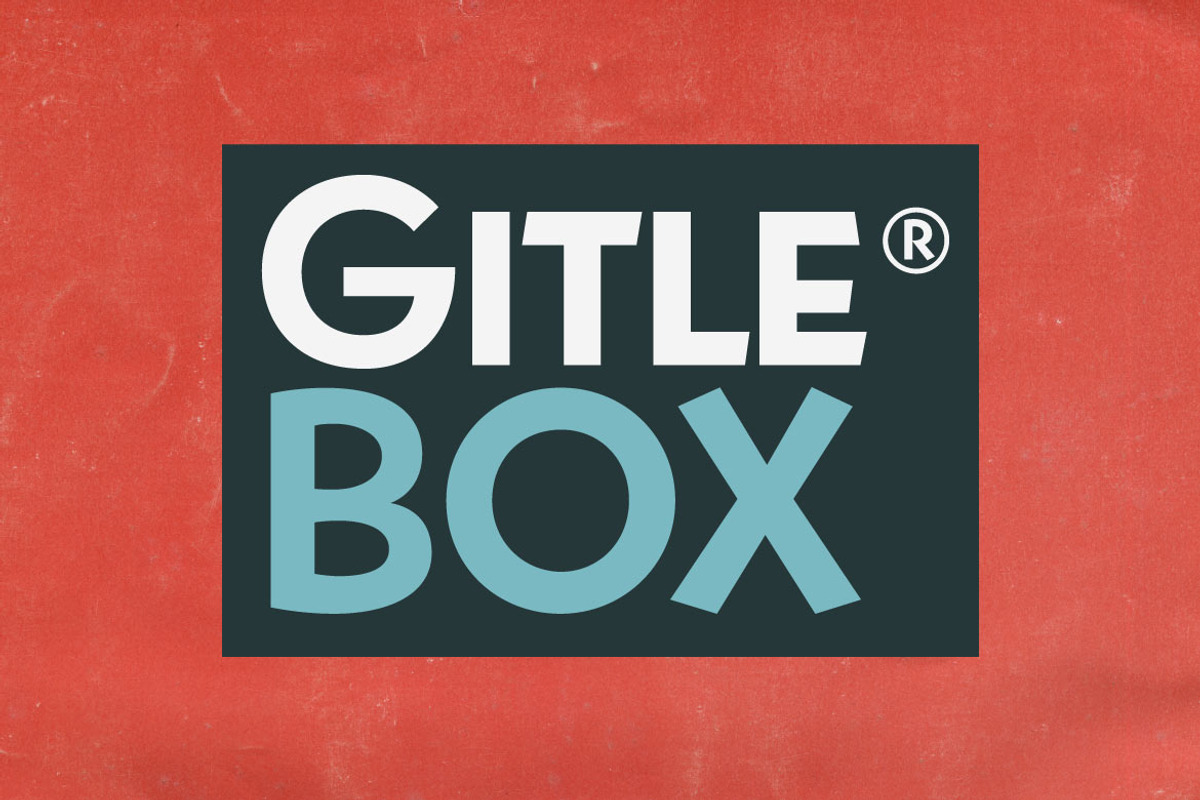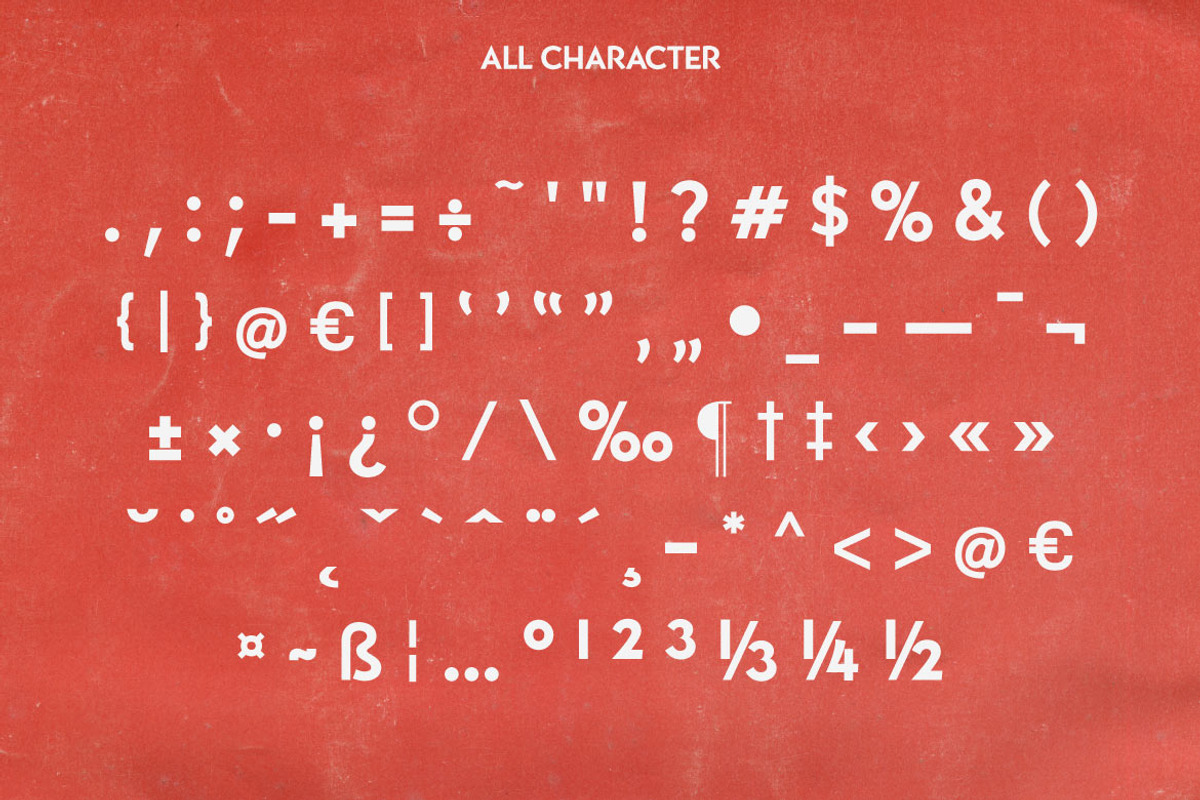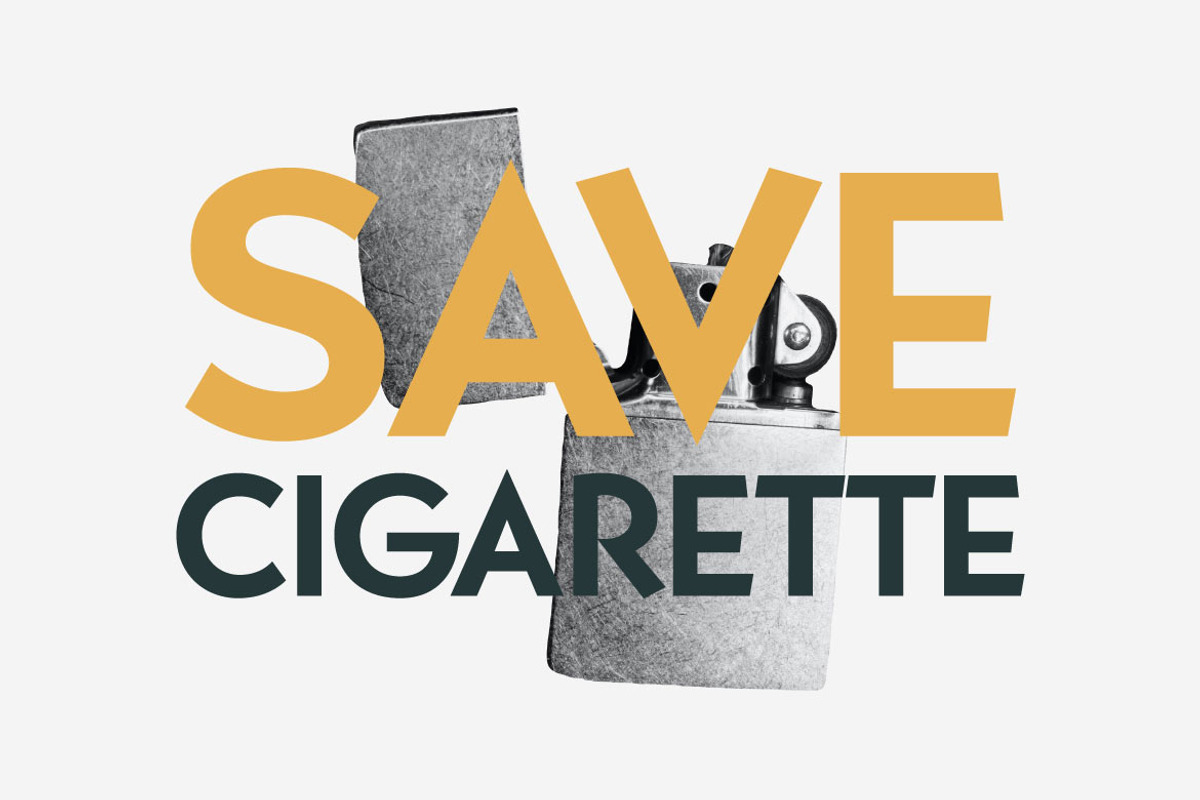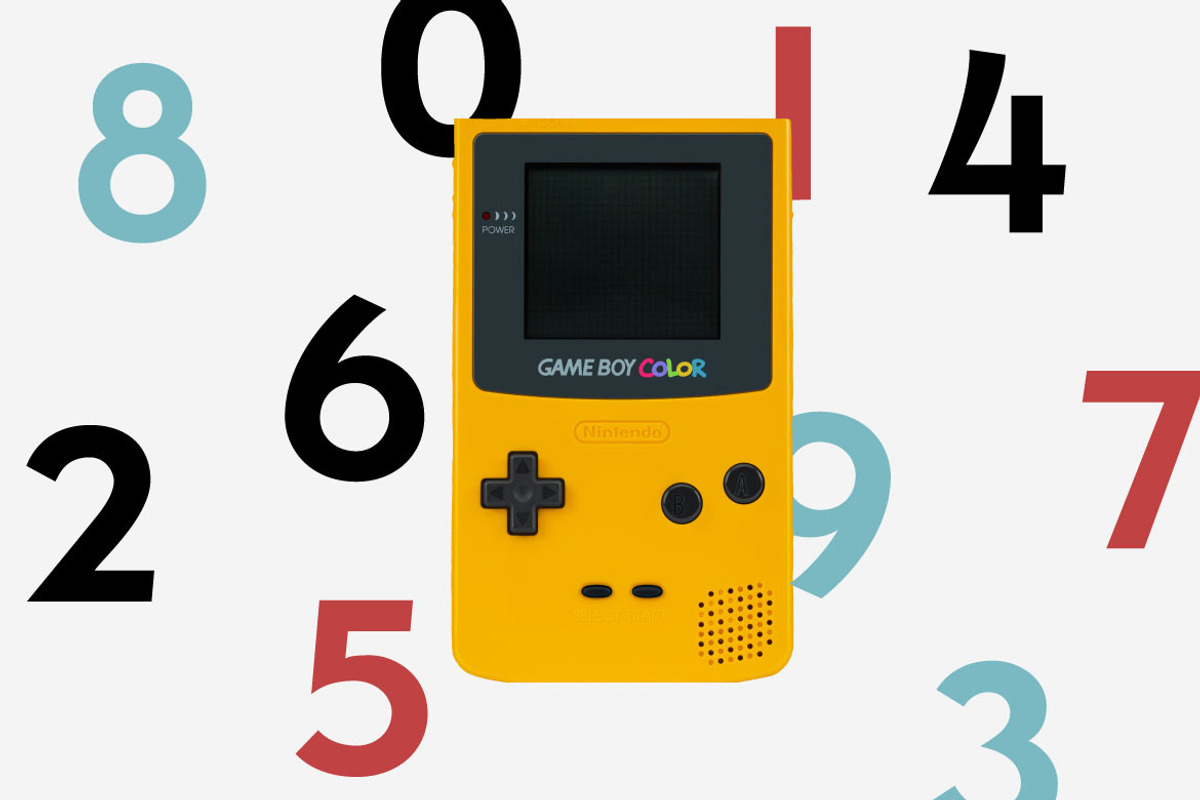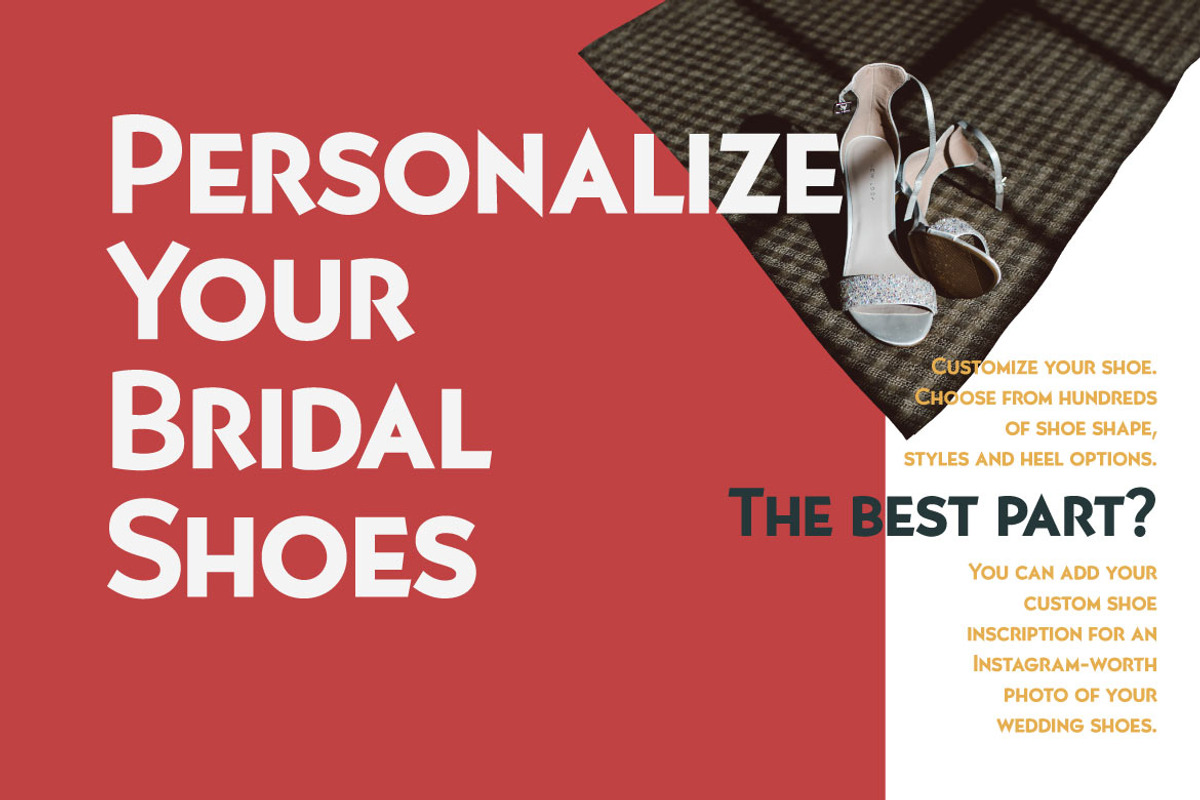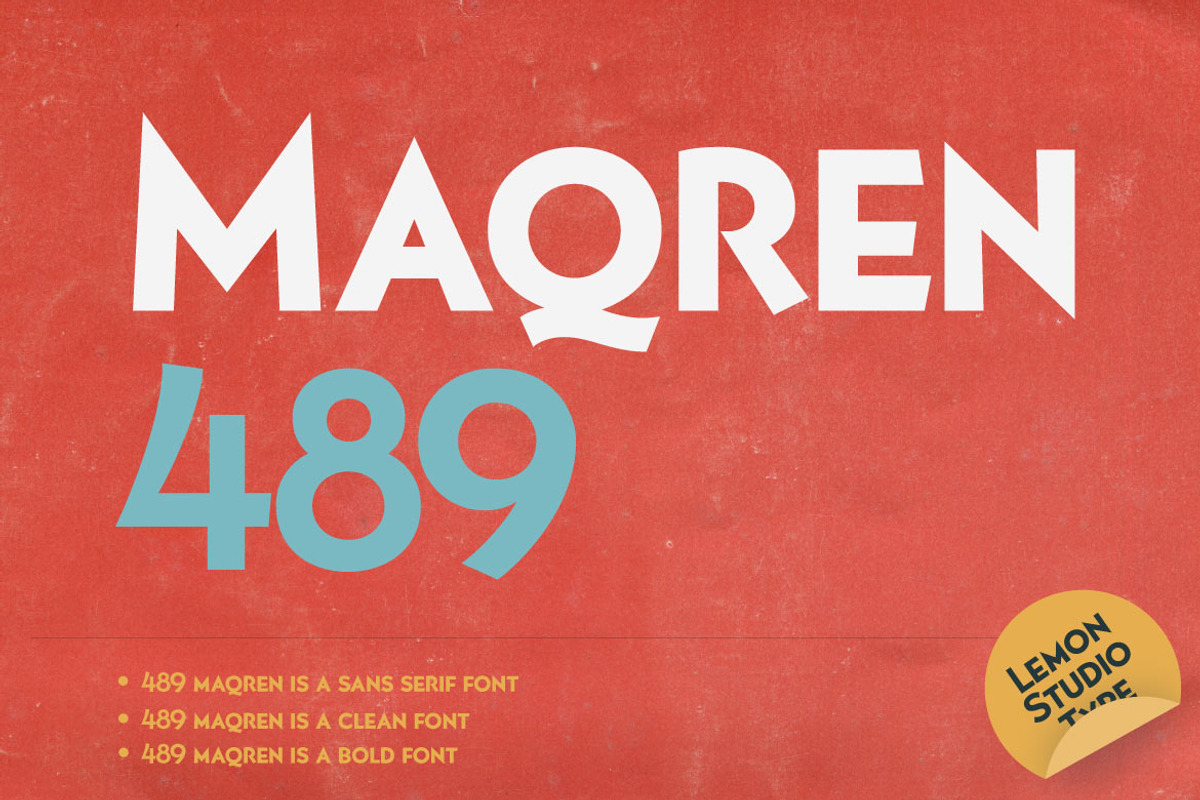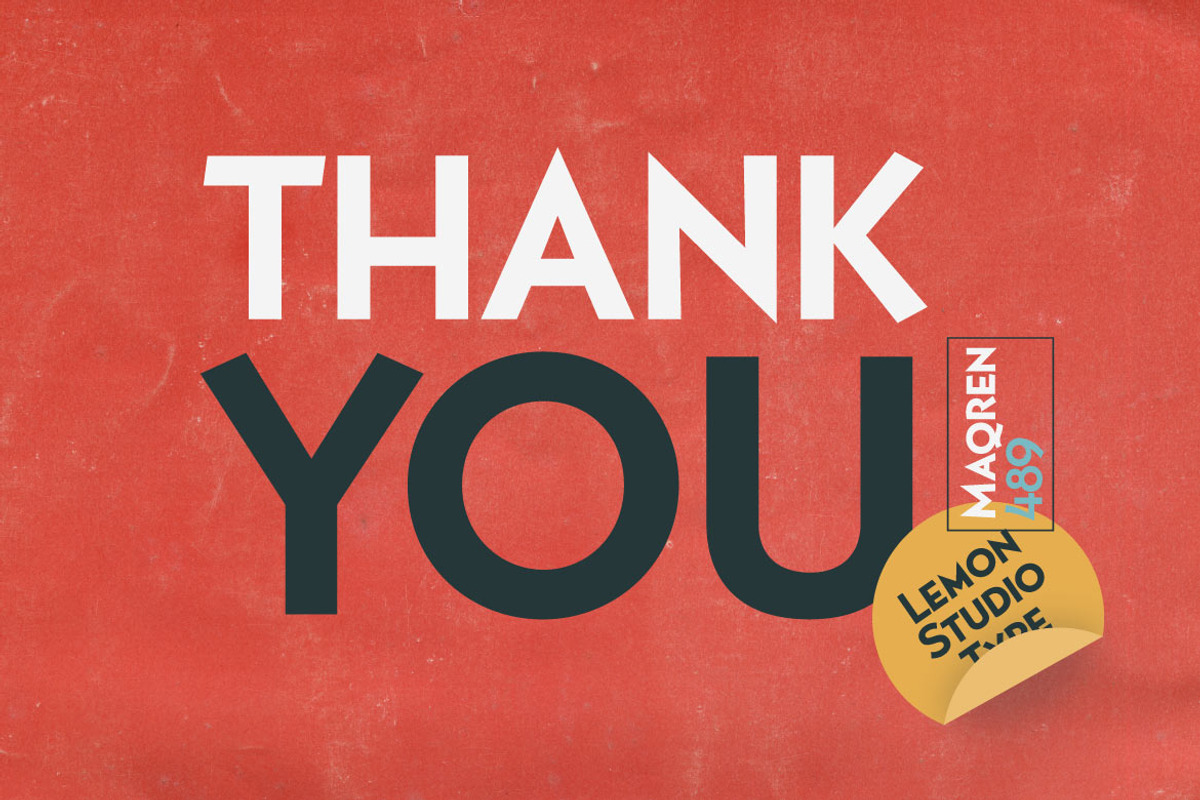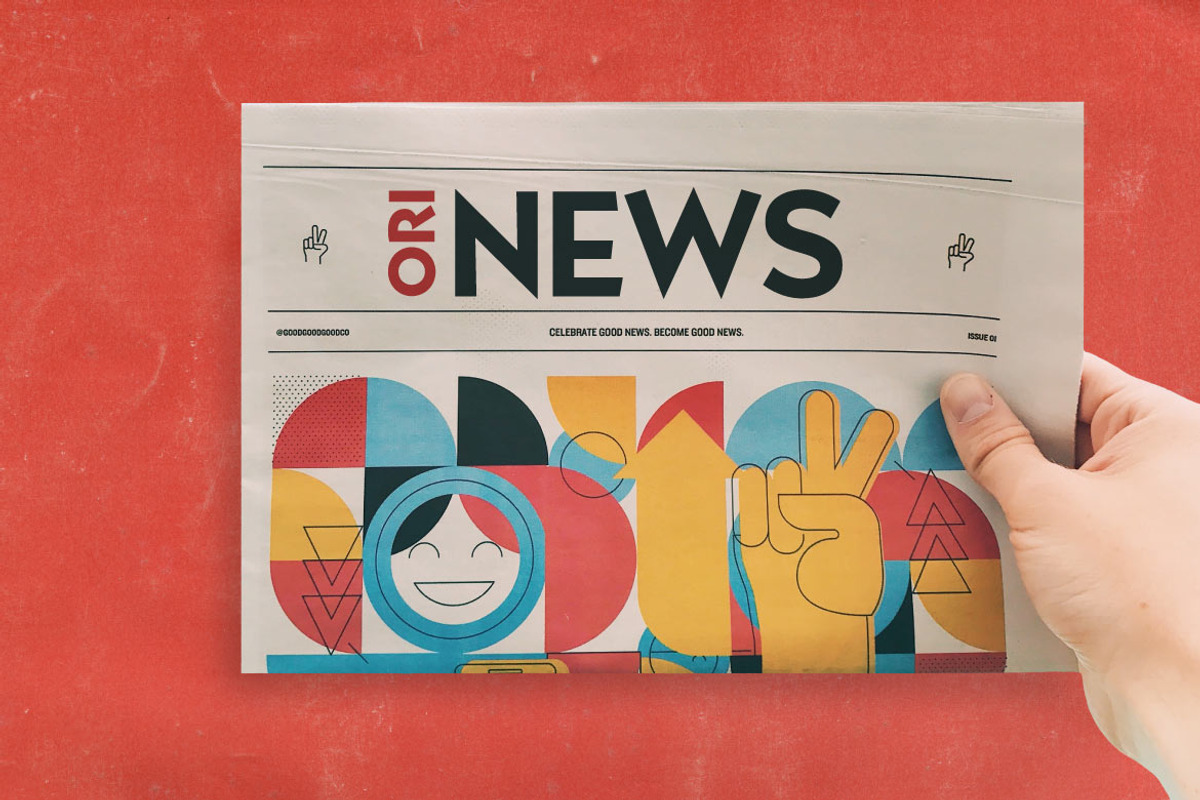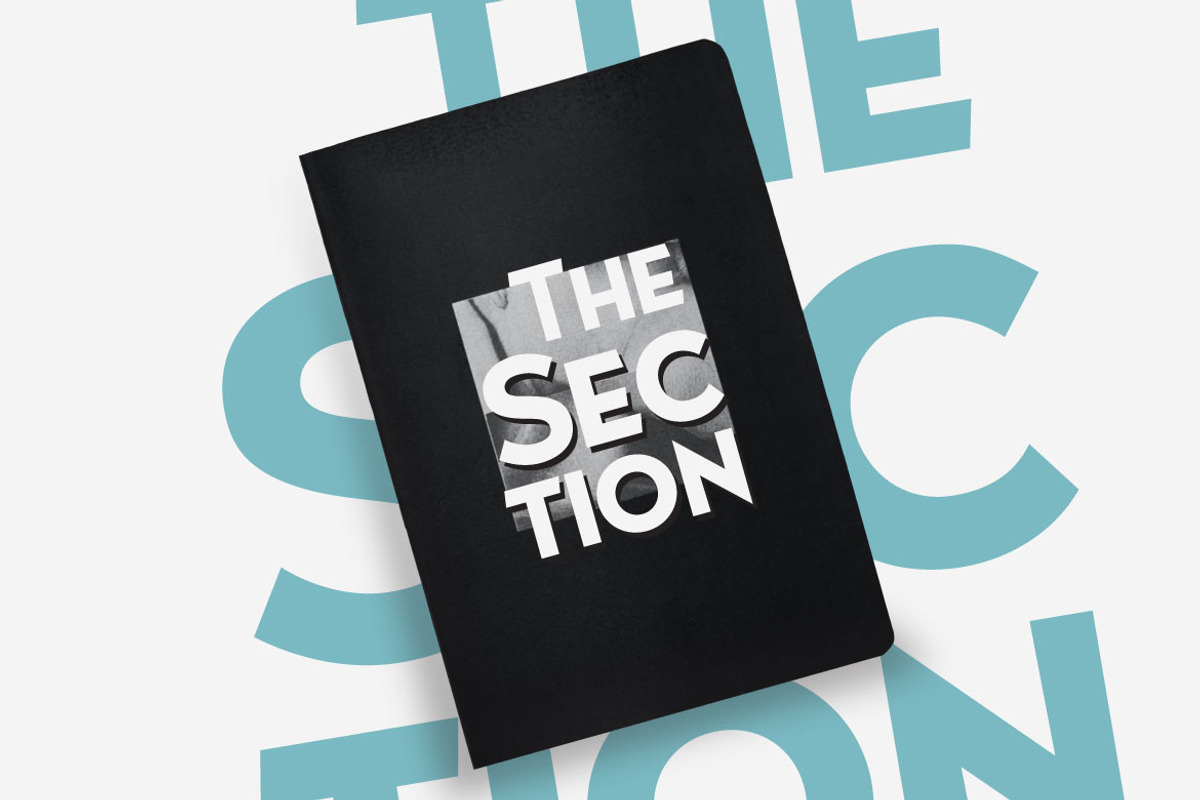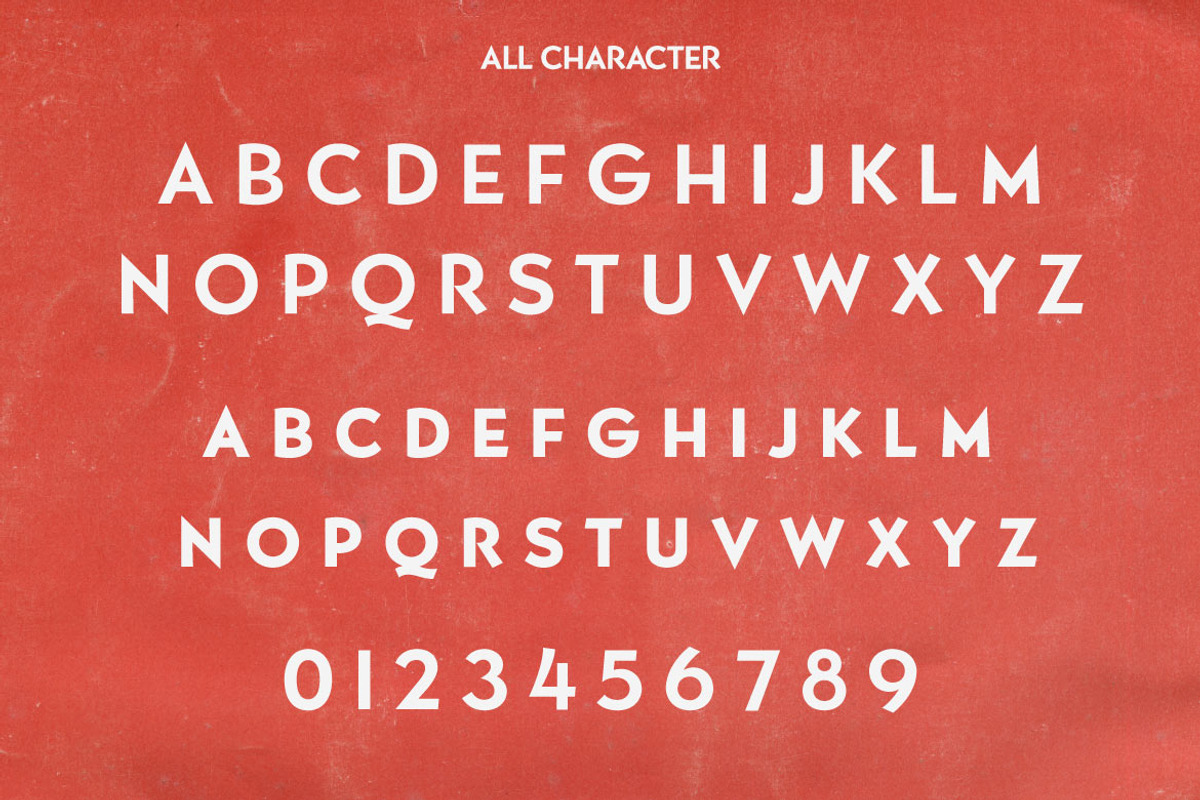
Maqren 489 - Bold Sans
Maqren 489 is a bold sans-serif font specifically designed for headlines. However, you can use it for various other design purposes such as for typography, posters, mockups, and many others.
- STANDARD CHARACTER SETS
-OPENTYPE FEATURES: -Fractions -Superscript, etc.